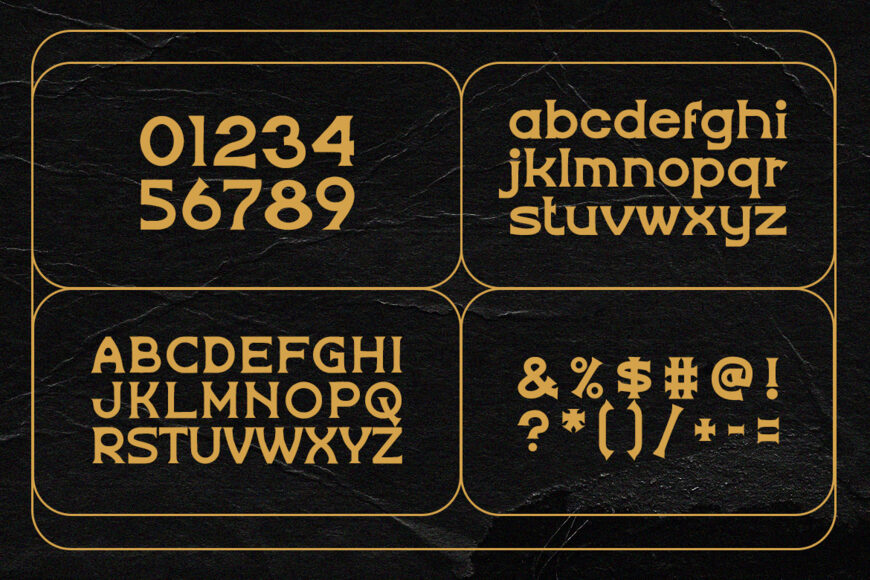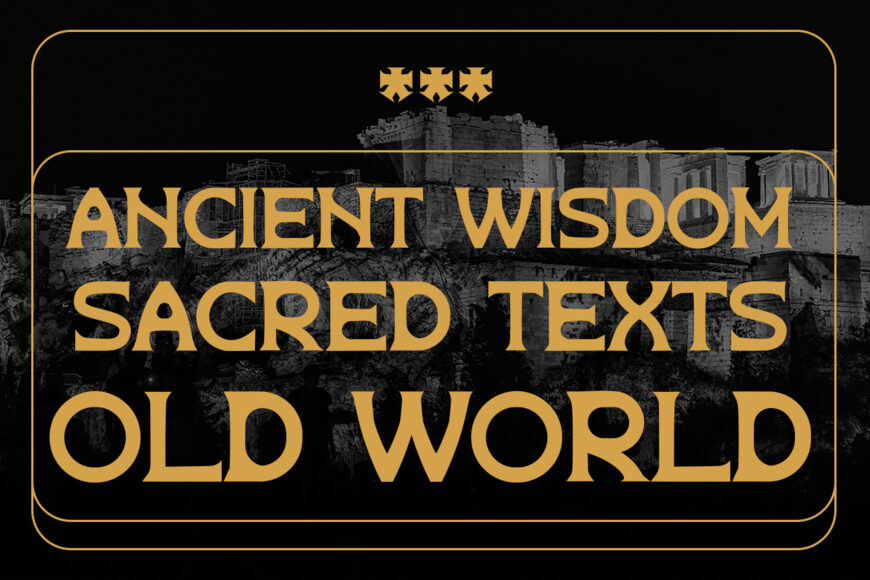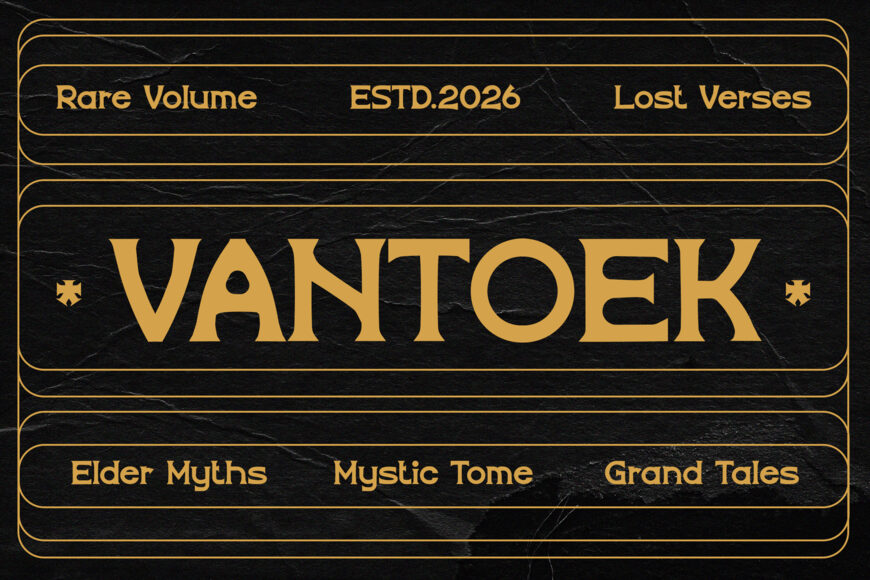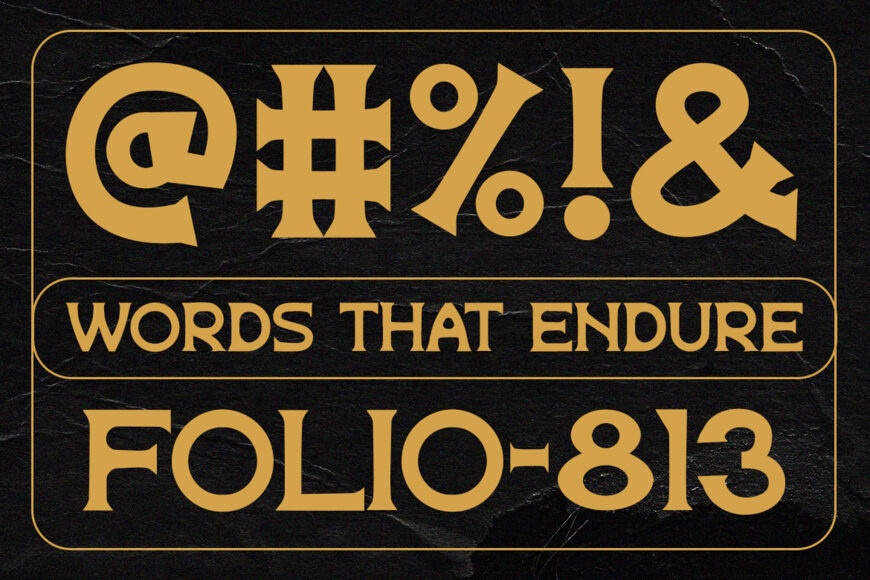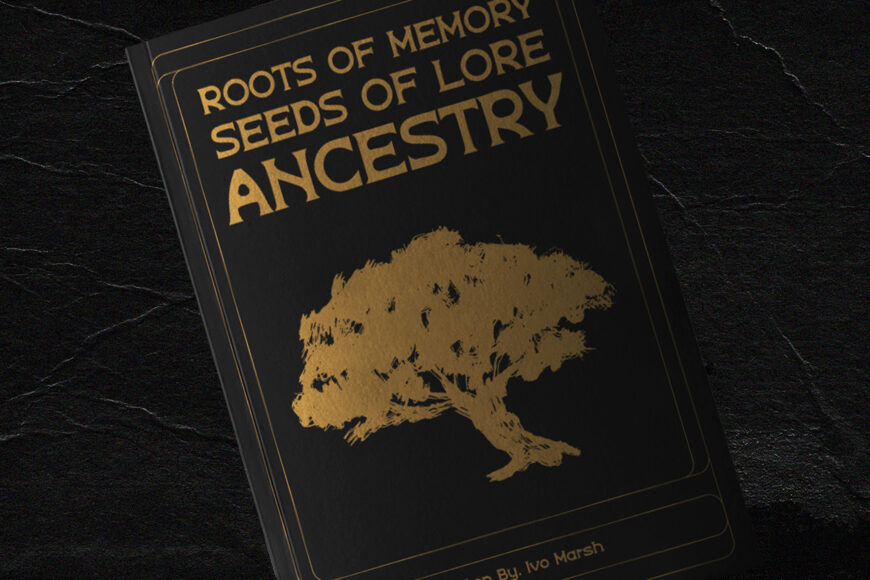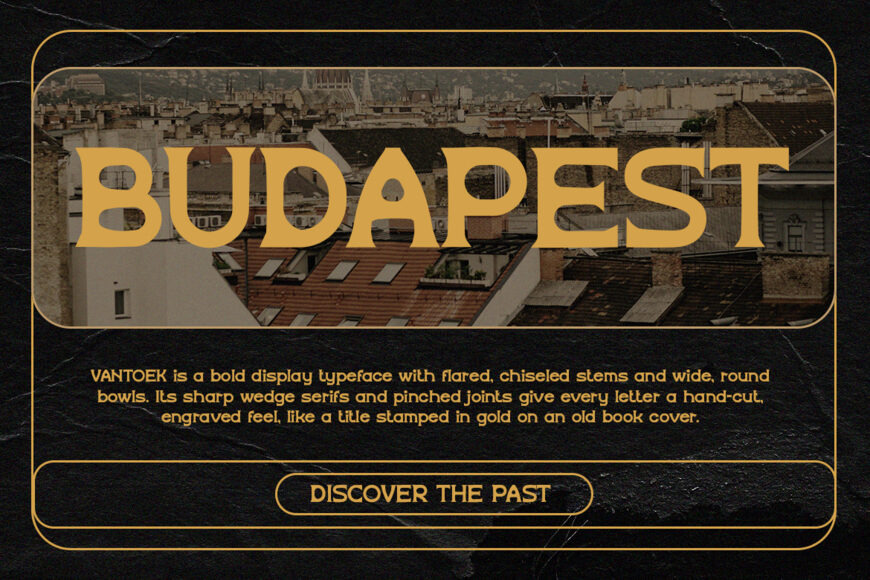
Vantoek Font
Vantoek is a bold retro font with an old-world, archival character. Its sturdy letterforms, rounded details, and ornamental lines create a distinctive vintage presence, while its strong shapes keep headlines clear and attention-grabbing.
Inspired by ancient texts, sacred manuscripts, historic libraries, European typography, and archival materials, it brings depth and heritage to any design. Ideal for posters, book covers, editorial projects, packaging, labels, logos, museum materials, travel artwork, and retro branding, Vantoek adapts effortlessly to both traditional and contemporary layouts.